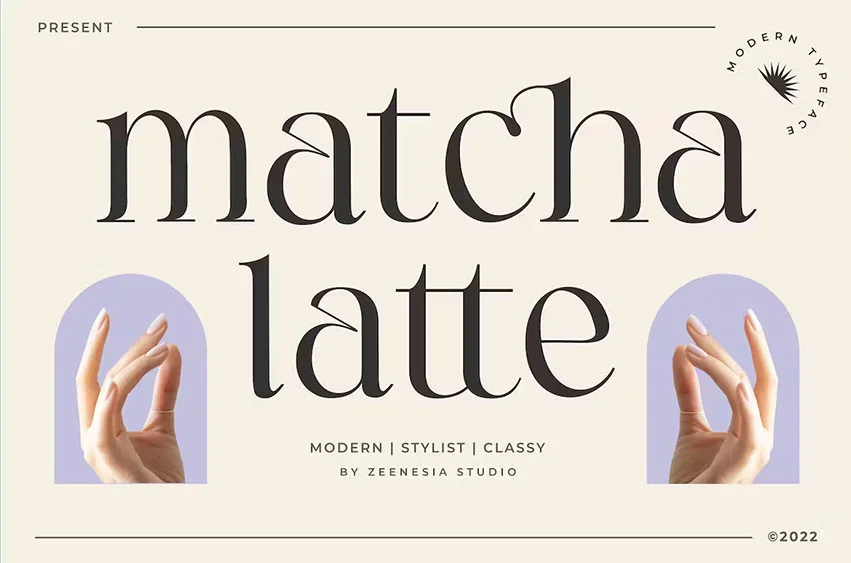
Matcha Latte Font is a beautiful and feminine serif font created by a romantic and lovely look. Matcha Latte was built with OpenType features, stylistic Alternate and Ligature makes your project will be awesome!! What’s Included :